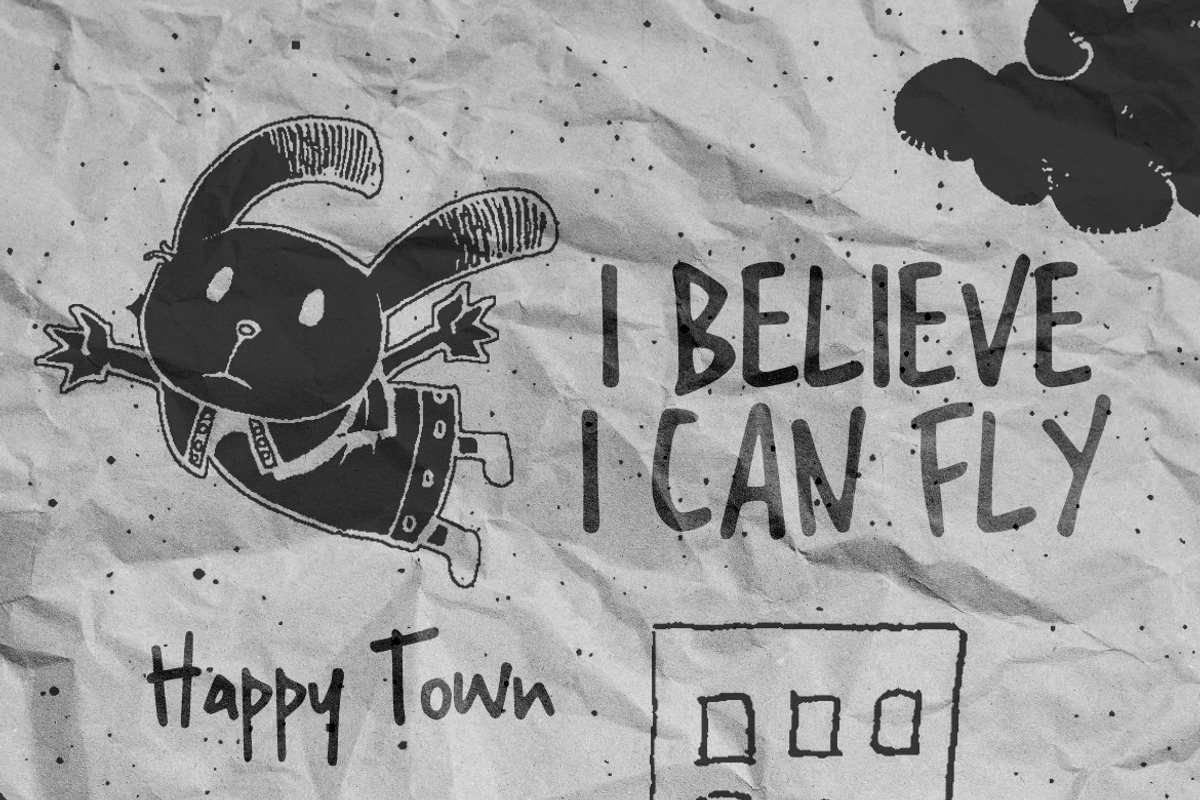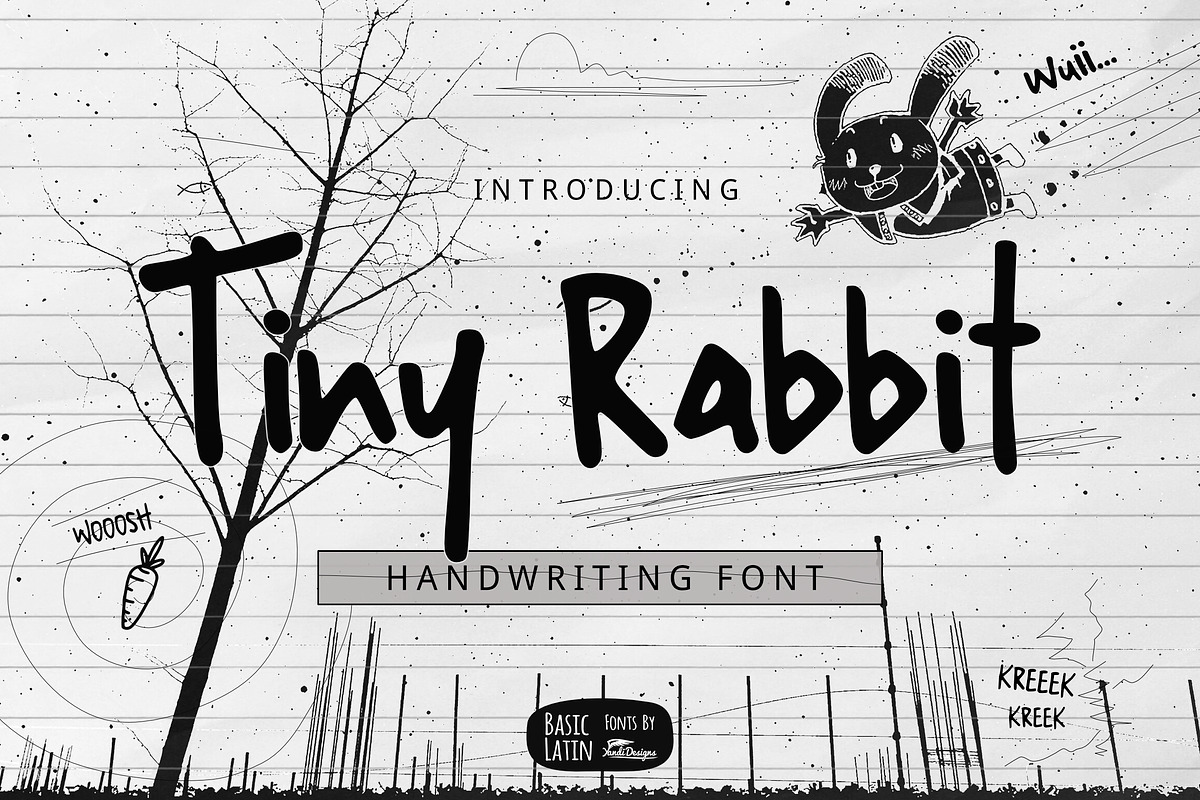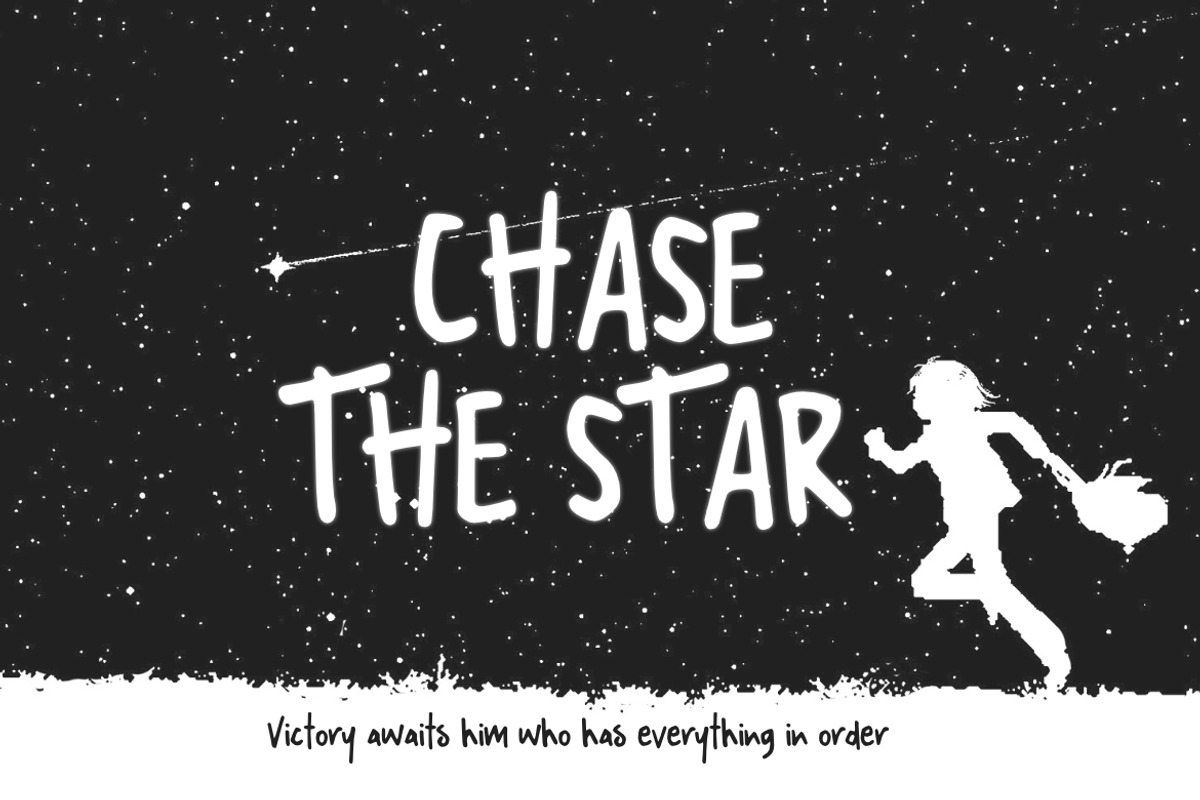
Tiny Rabbit Handwriting Font
Tiny Rabbit is lovely , cute, simple, playful, multipurpose handwritten font , suitable for many project children book, quotes, logo , heading , title etc.
Tiny Rabbit Handwriting Font by YandiDesigns fits naturally into Branding, posters, packaging, typography.